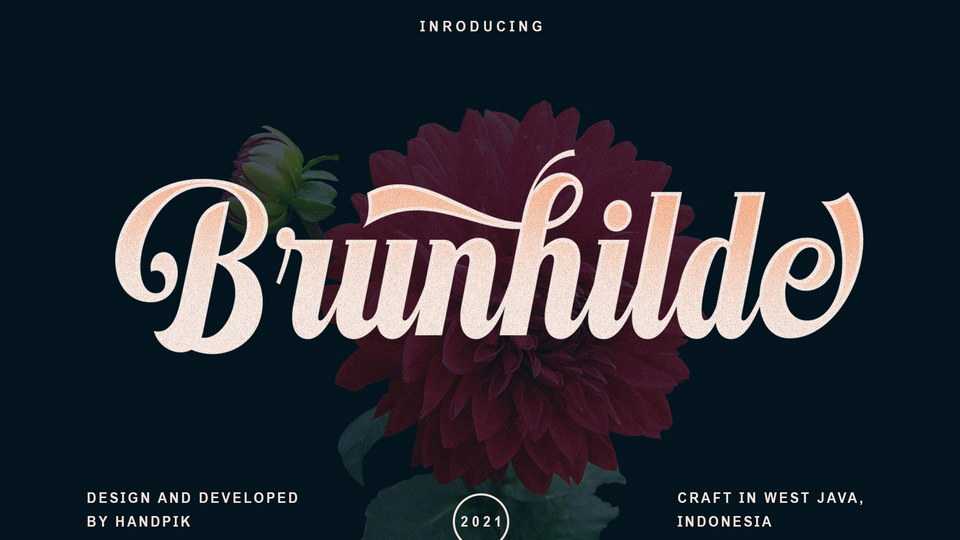
Download Brunhilde font, an exquisite handwritten typeface, masterfully designed to become a true favorite. Brunhilde maintains its classy calligraphic influences while feeling contemporary and fresh.
Designer: Handpik Design